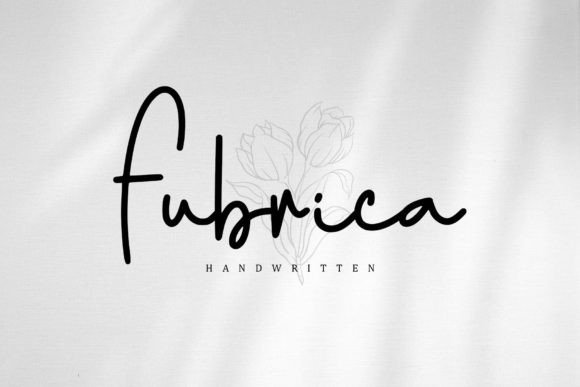
Journey into the realm of Fubrica Font, a whimsical and pristine handwritten masterpiece crafted by the visionary Sakha Design. This font family, belonging to the illustrious script genre, beckons you to explore its captivating world of boundless creativity.
Unleash your imagination and immerse yourself in a symphony of flowing lines, graceful curves, and enchanting flourishes. Fubrica Font is a testament to the artistry of pen and ink, evoking the charm and elegance of handwritten notes penned with love and care.
As you embark on your creative endeavors, Fubrica Font will be your steadfast companion, guiding you through a myriad of design possibilities. Its versatile nature makes it a perfect fit for an incredibly diverse array of projects, from eye-catching posters that demand attention to elegant invitations that exude sophistication.
Imagine your words dancing across the page, imbued with the whimsical spirit of Fubrica Font. Create posters that ignite the imagination, transport your audience to faraway realms, and leave them mesmerized by your artistic prowess. Design invitations that capture the essence of your special occasion, conveying both joy and elegance in equal measure.
With Fubrica Font at your fingertips, you possess the power to transform ordinary designs into extraordinary masterpieces. Its enchanting aura will elevate your projects to new heights, leaving a lasting impression on all who behold them.
So, seize this opportunity to embrace the magic of Fubrica Font. Let its whimsical charm infuse your creative vision and witness the birth of designs that captivate and inspire.